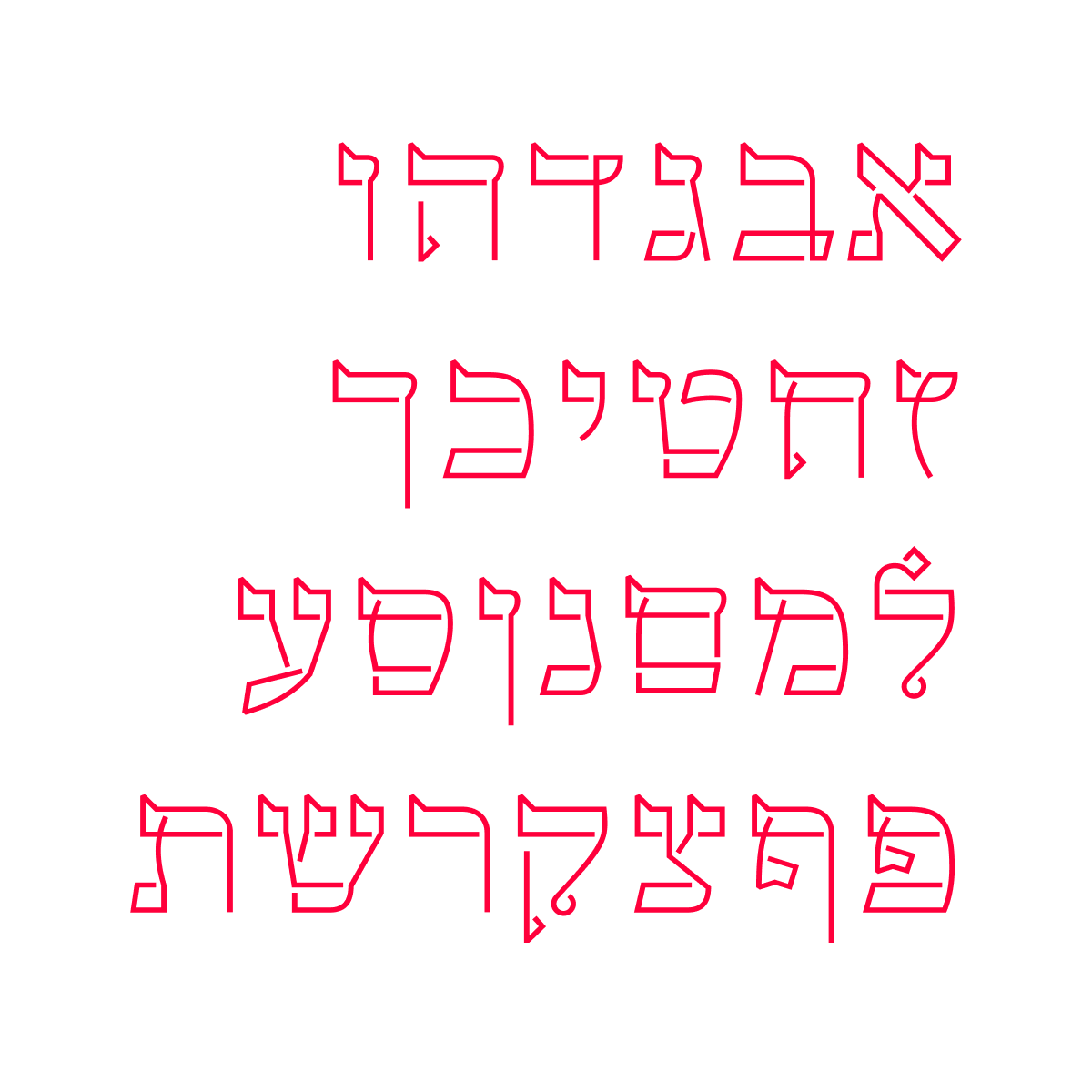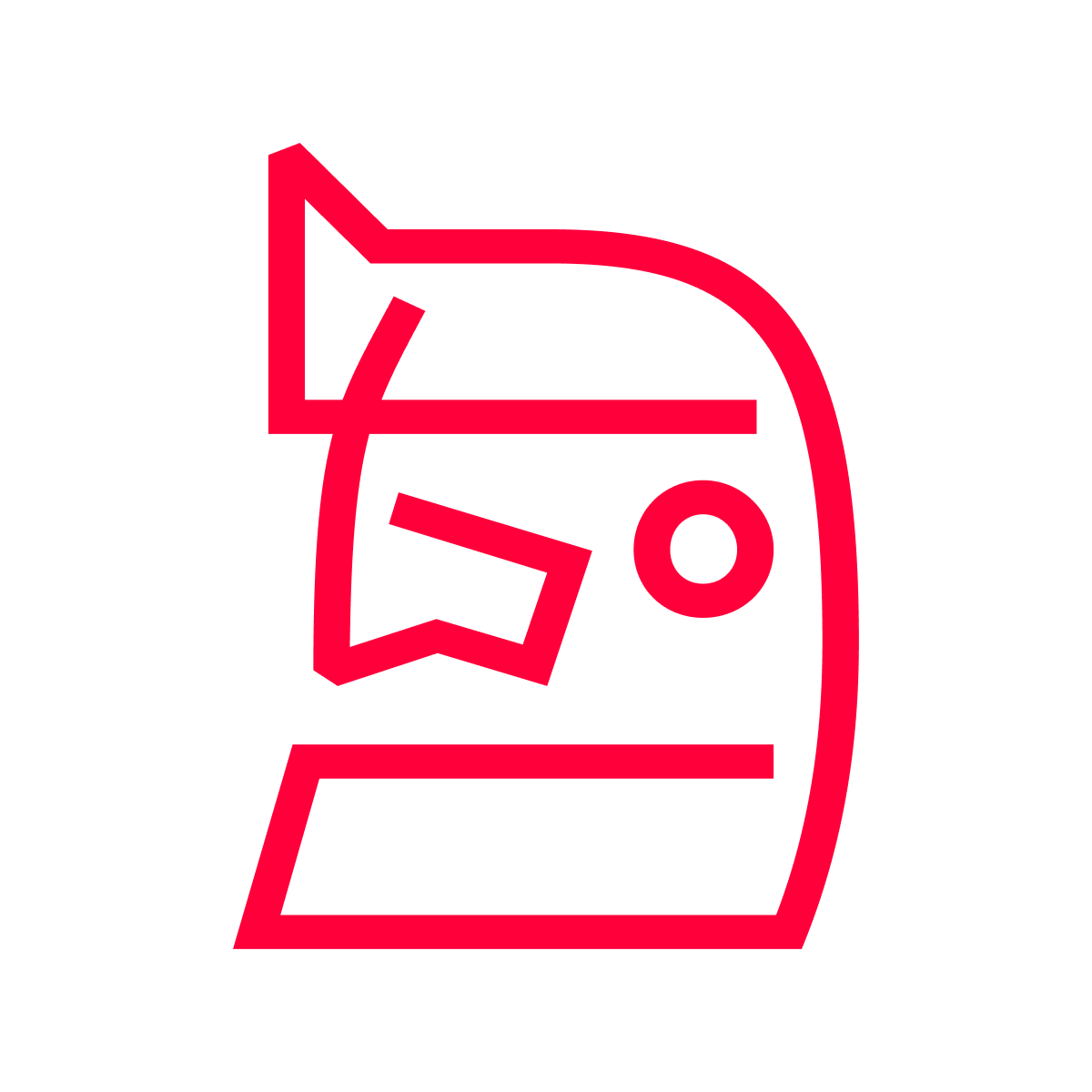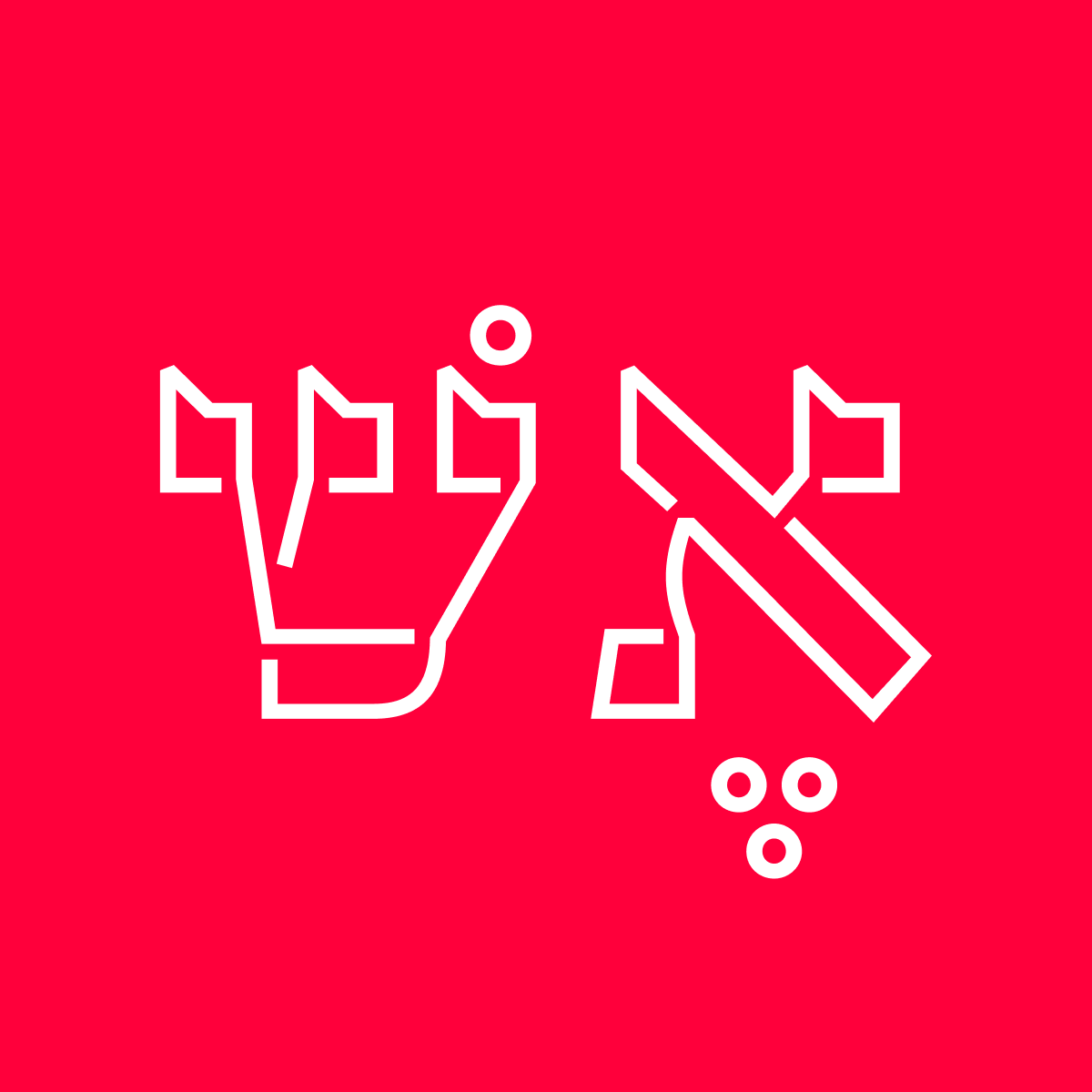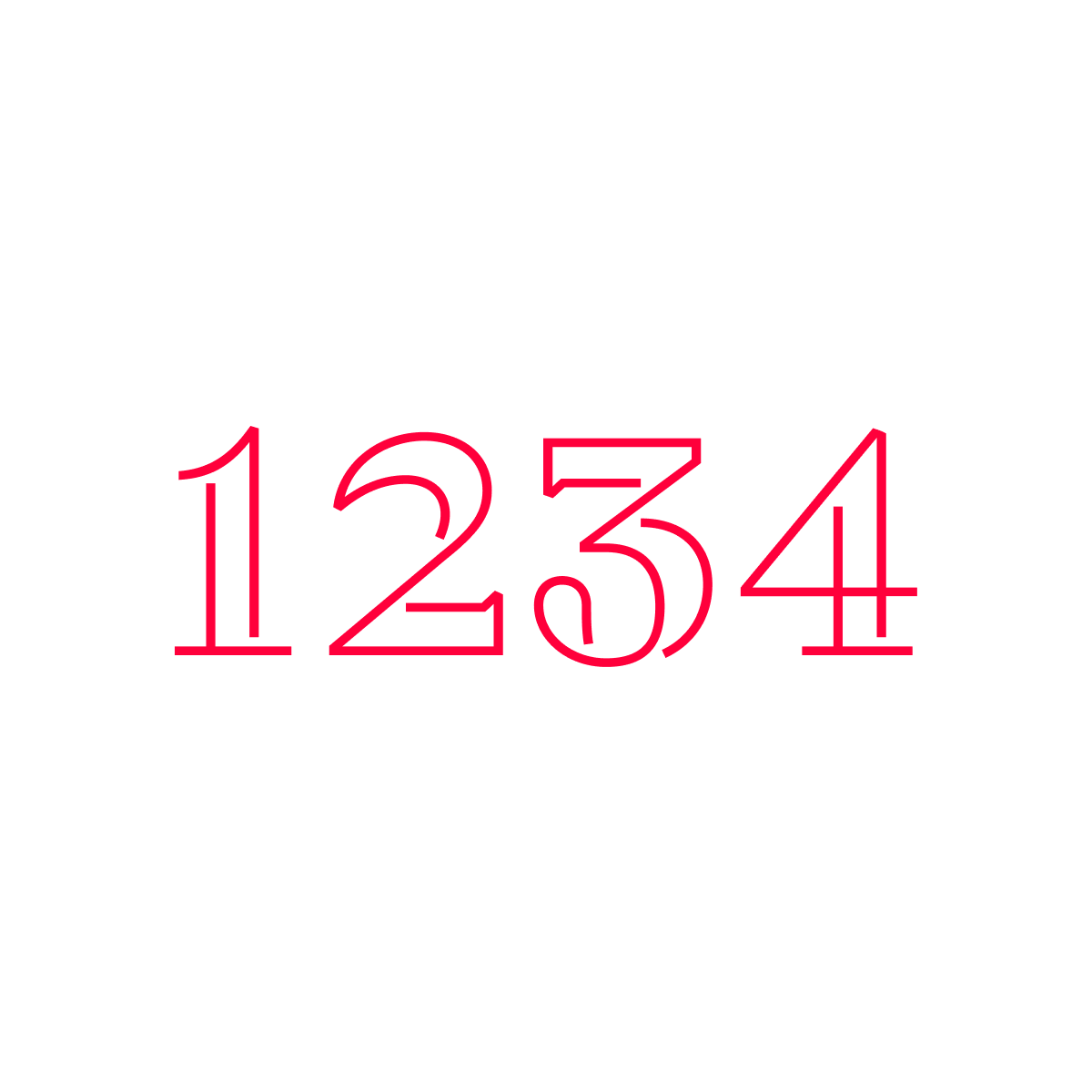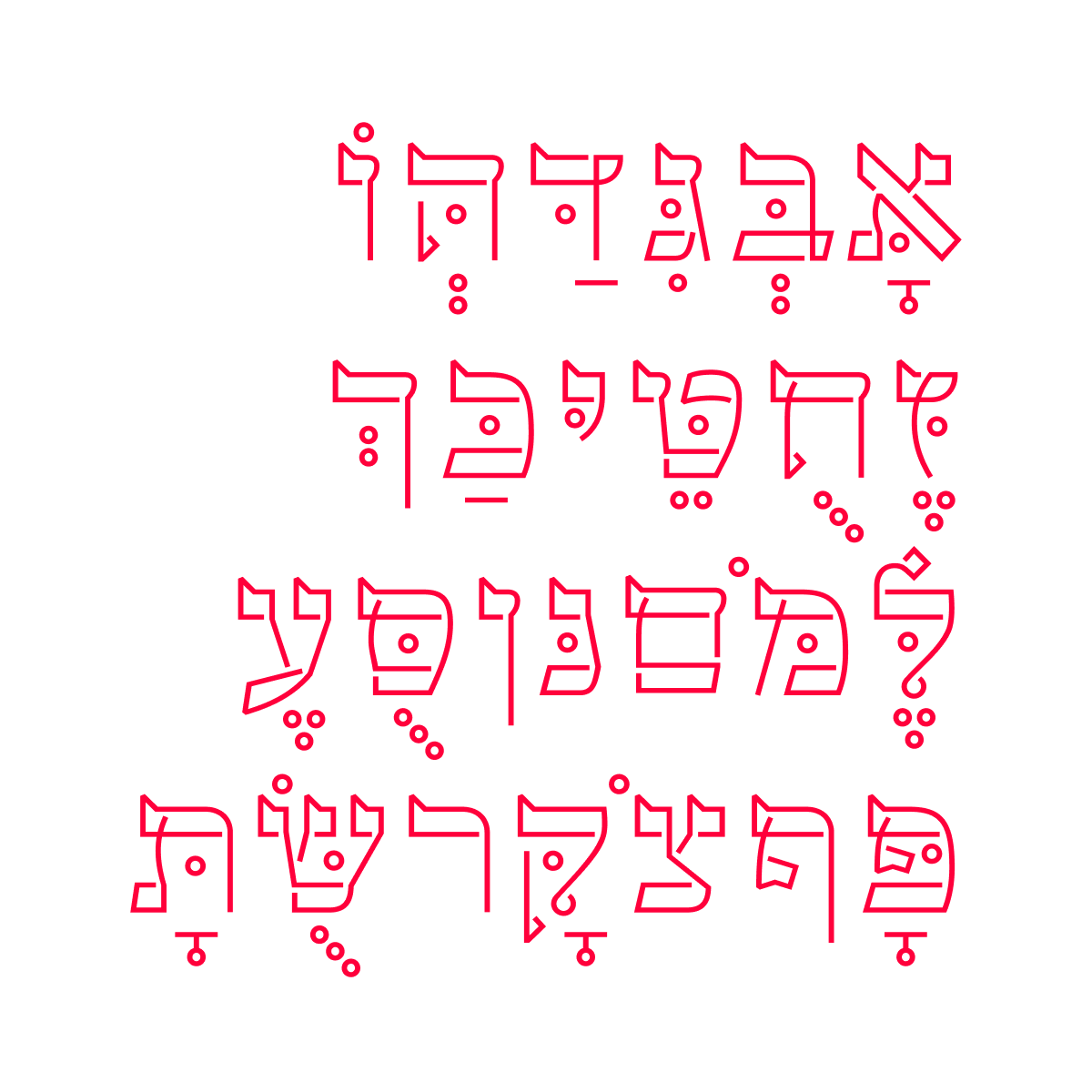
Yeffe Nefesh is a custom display typeface created for the cover and poem title dividers of "Faggot", the first Spoken Word book published in Hebrew. The typeface showcases the critical, sharp poems by performance artist Yossi Zabari. The design was inspired by vintage Israeli poetry books, using classic elements with a modern approach to echo the book's content and author. It is based on an old Hebrew typeface (Meruba) combined with a new interpretation to deliver an original, unique, daring message, like Zabari's work.
Typeface: Yeffe Nefesh
Designed by: Nir Zabari Yenni
Year: 2024
Languages: Hebrew
Yeffe Nefesh in Use
Yeffe Nefesh typeface in use - application 1
Yeffe Nefesh typeface in use - application 2
Yeffe Nefesh: a custom Hebrew display typeface
Yeffe Nefesh is a custom display typeface created for the cover and poem title dividers of "Faggot", the first Spoken Word book published in Hebrew. The design was inspired by vintage Israeli poetry books, using classic elements with a modern approach.